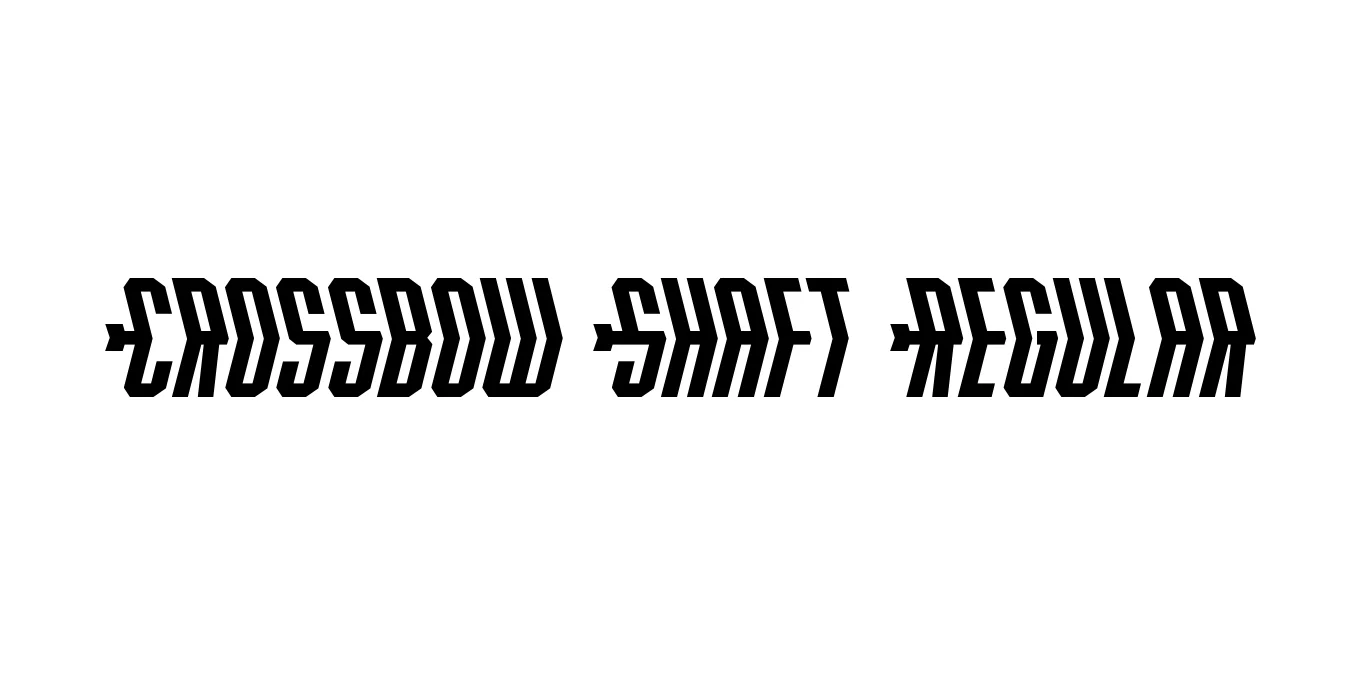
Crossbow Shaft Regular
Designed by Wino S Kadir
| Font Name | Crossbow Shaft |
| Category | Techno / Display |
| Designer | Wino S Kadir |
Crossbow Shaft Regular is a sophisticated display typeface that bridges the gap between industrial engineering and modern digital design. Characterized by its sharp terminals and robust geometric foundations, this font was crafted to provide a sense of speed, precision, and futuristic intent. It is particularly effective in environments where a high-tech aesthetic is required, offering a clean yet aggressive look that commands attention on both screen and print.
The history of Crossbow Shaft is rooted in the evolution of techno-typographic trends, drawing inspiration from aerospace signage and mechanical blueprints. Over time, it has become a favorite among designers working in the gaming and automotive industries due to its balanced proportions and distinct visual rhythm. Its Regular weight ensures that while the design is stylized, it remains highly legible for headlines and medium-length copy in promotional materials.
Crossbow Shaft Regular Best Uses
Ideal for heads-up displays, menu systems, and sci-fi themed interface elements.
Excellent for technology startups, e-sports teams, and engineering firms looking for a bold identity.
Highly effective for large-scale banners, posters, and digital ads in the tech and automotive sectors.